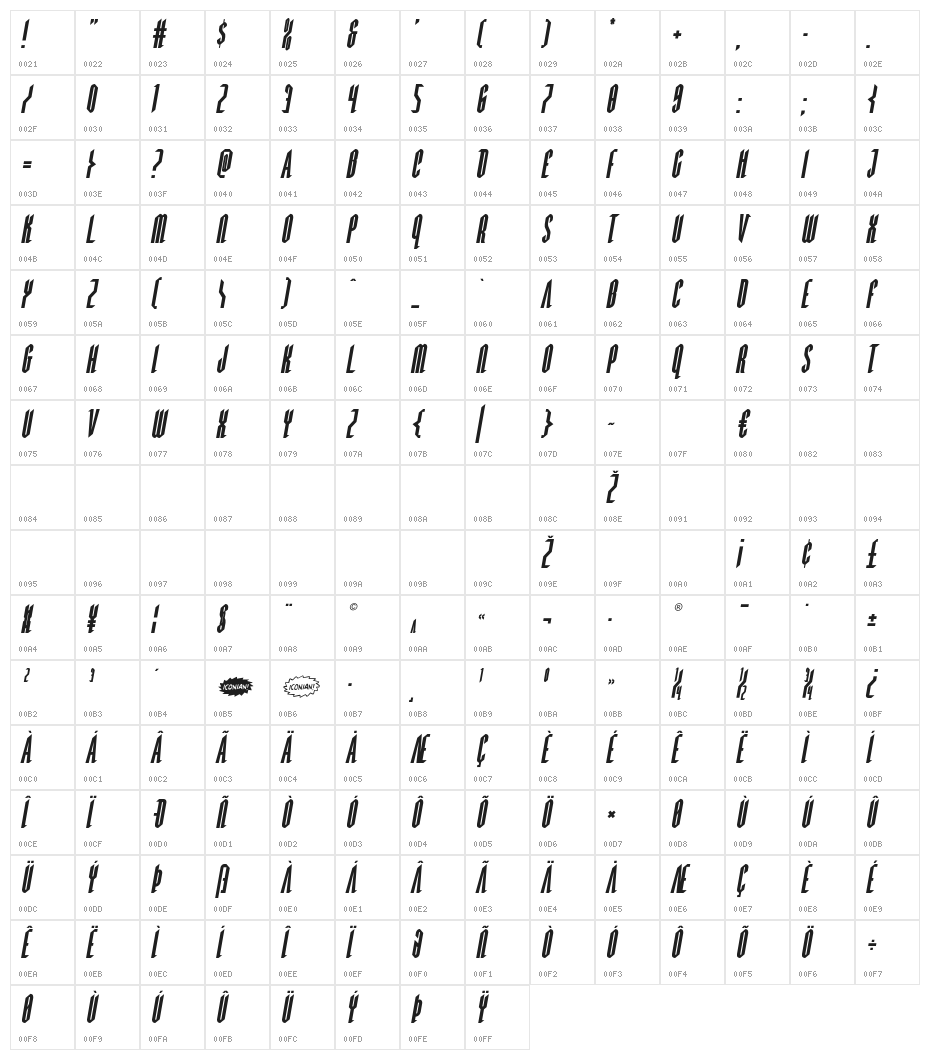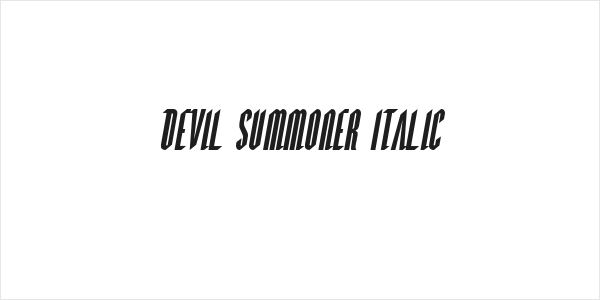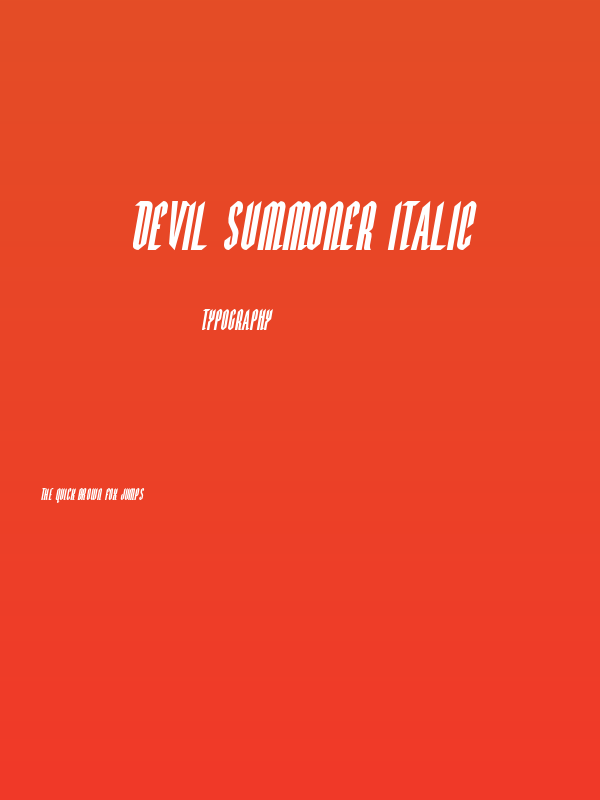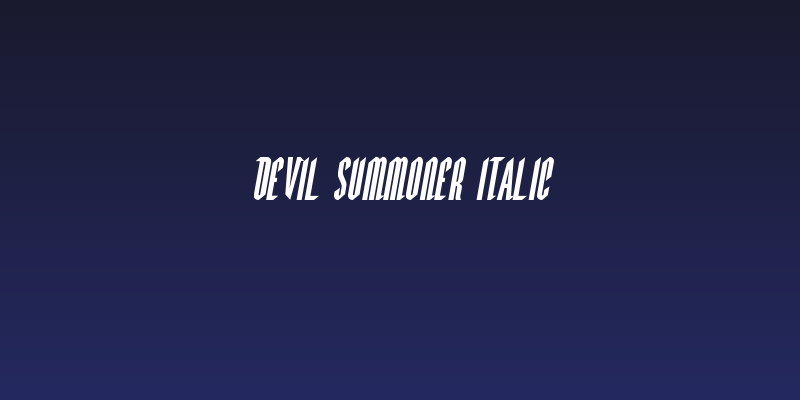
Devil Summoner Italic Font
Devil Summoner Italic Description
This font features a bold and dynamic italic style, characterized by sharp angles and a strong forward slant. The uppercase letters are tall and narrow, creating a sense of urgency and movement. The lowercase letters maintain the same angular style, providing consistency across the typeface. Numbers and special characters are designed to match the overall aesthetic, with a distinctive, edgy appearance. The font's unique style makes it stand out, ideal for projects that require a bold statement.